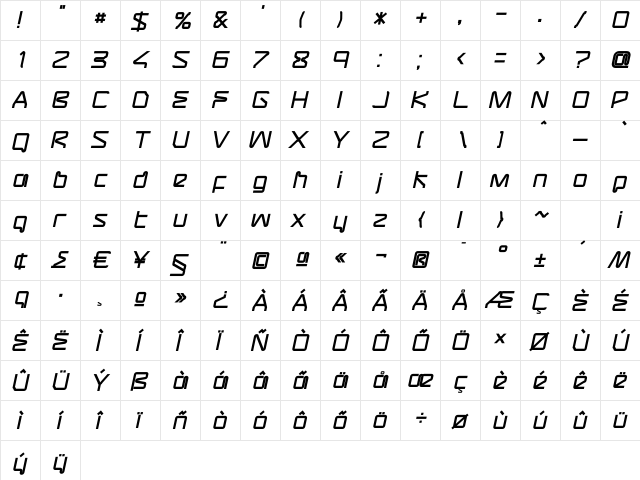
AssemblerBold Oblique Regular
Design Context for AssemblerBold Oblique Typeface
AssemblerBold Oblique takes a measured approach to typography — its balanced proportions and neutral character make it a reliable workhorse for both digital and print work. The slanted form adds forward momentum and visual energy. The heavy weight commands attention and anchors typographic hierarchies.